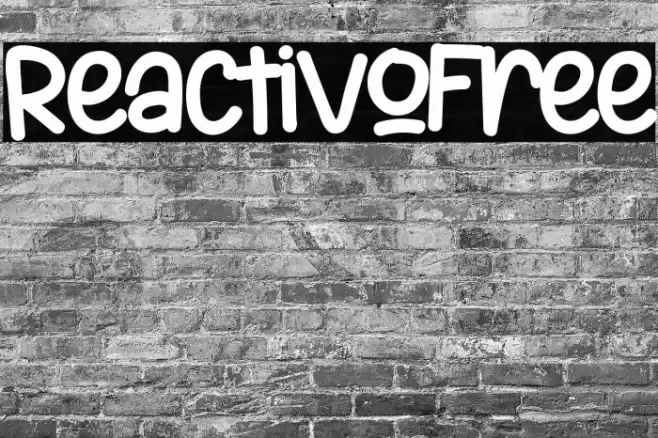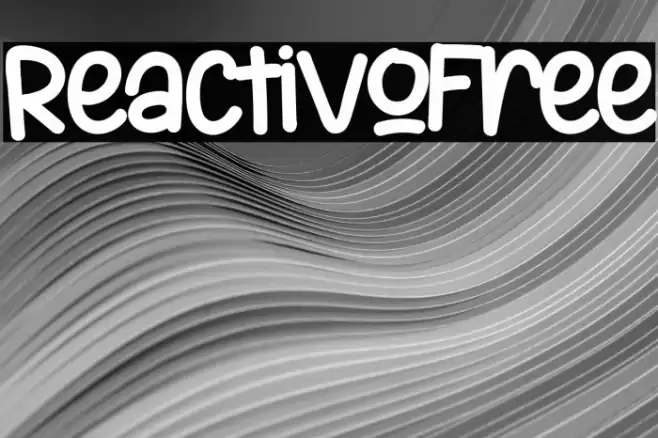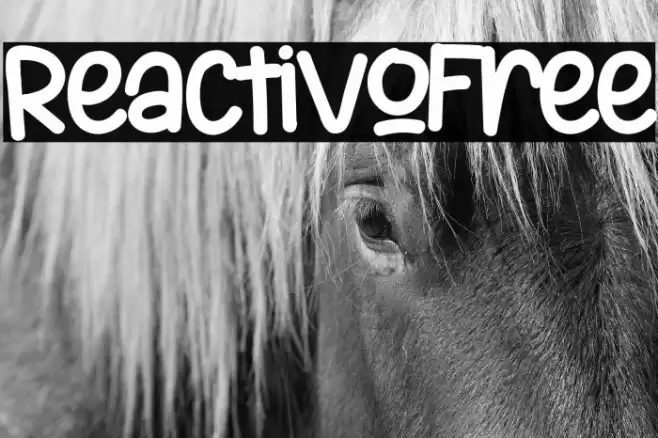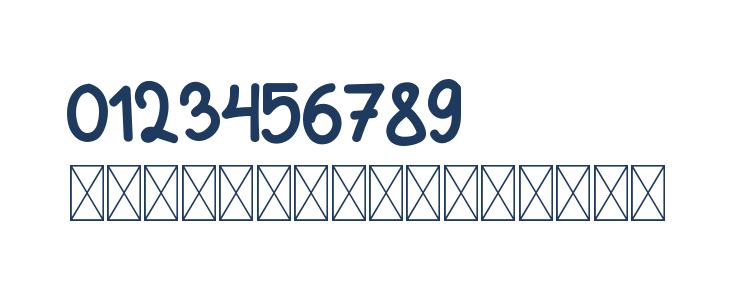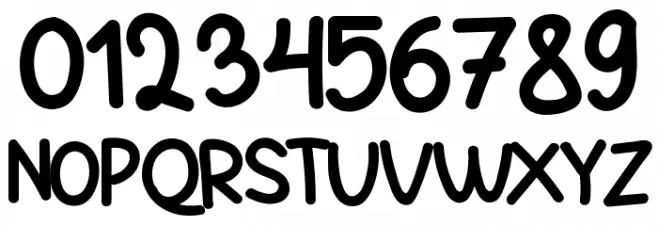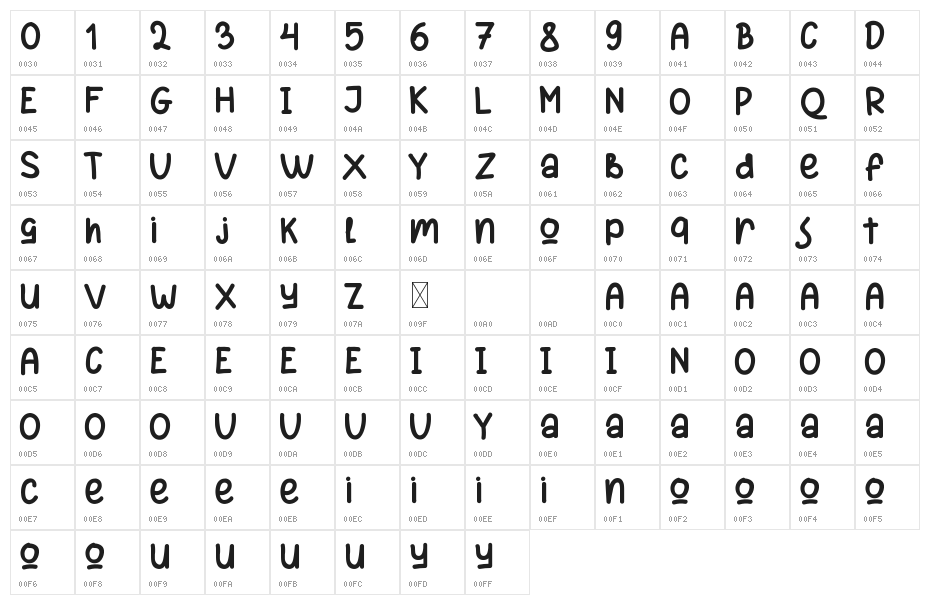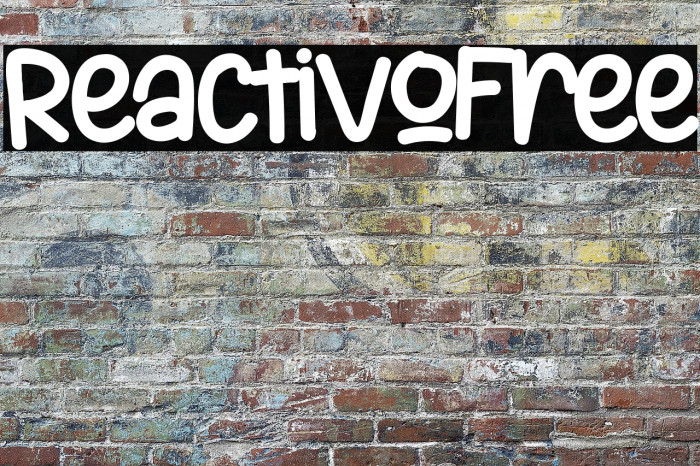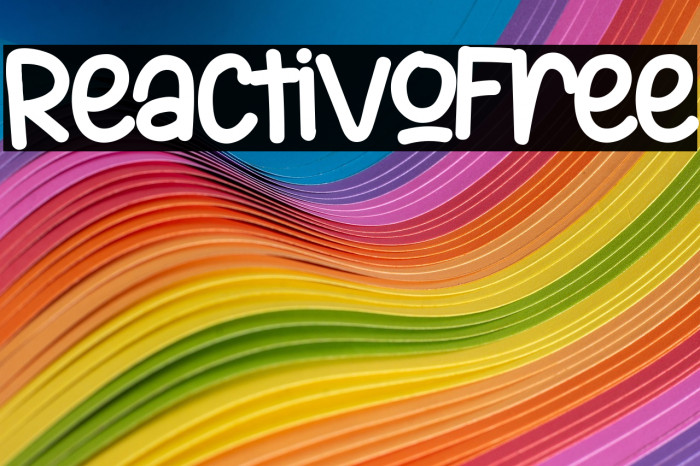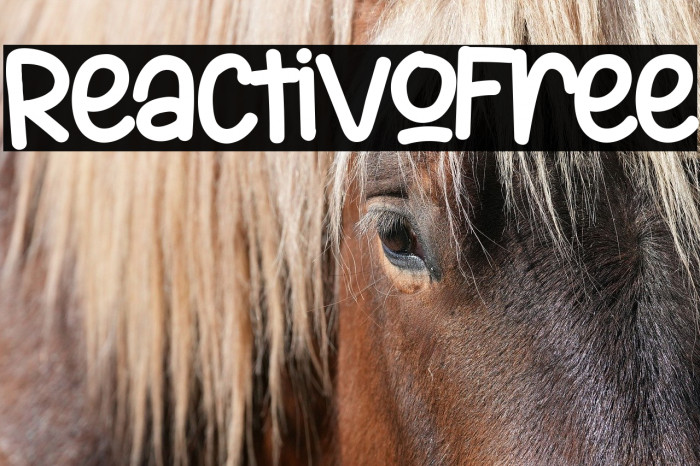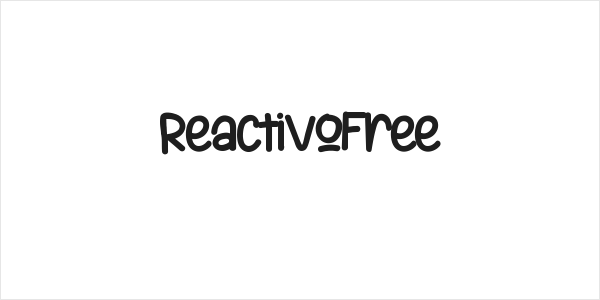
ReactivoFree Font
ReactivoFree Description
This playful and bold font features a handwritten style with a casual and friendly appearance. The letters are rounded and slightly irregular, giving it a whimsical and approachable feel. The uppercase and lowercase characters maintain a consistent thickness, contributing to its cohesive look. The numbers and special characters follow the same playful design, making it versatile for various uses. Its bold strokes and rounded edges make it stand out, while the informal style adds a touch of fun and creativity.
A playful, bold handwritten font with rounded, whimsical characters from Regular fonts.
- Proposed Projects: Ideal for children's books, playful branding, greeting cards, and creative posters.
- Overall Style: Playful
- Use Case: Logos, Posters, Greeting Cards